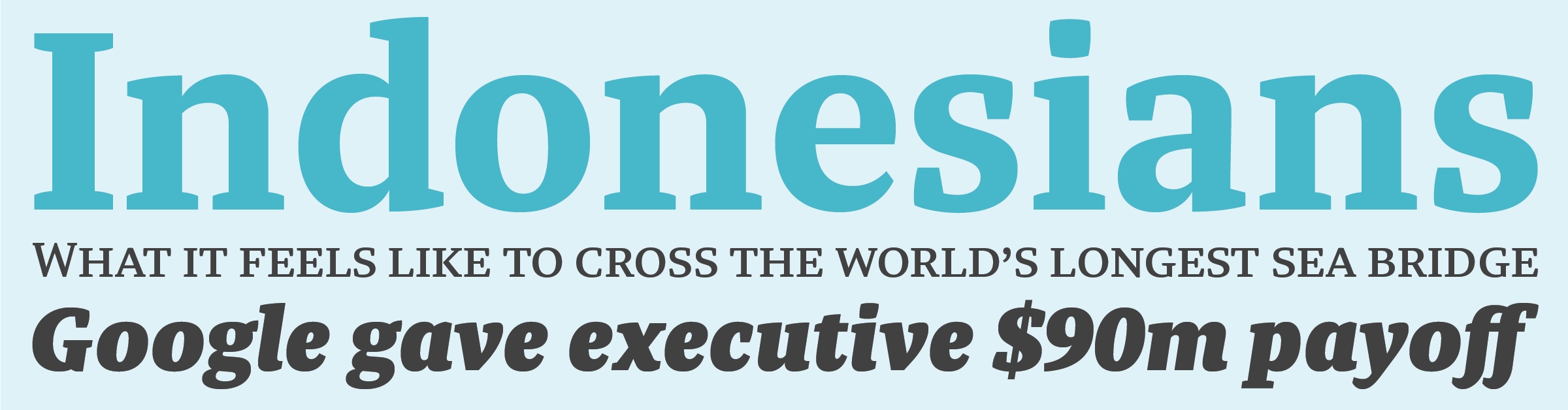
Tasman Font
Tasman Font is perfect for Australian tourism marketing, maritime adventure branding, exploration company logos, outdoor gear packaging, historical museum displays, seafaring heritage signage, adventure travel campaigns, and oceanic research communications.
What makes Tasman Font exciting is its exploratory spirit that captures the bold adventure and maritime heritage of legendary ocean voyages and geographical discovery. The font features sturdy letterforms with navigational precision and seafaring character that evoke compass roses, nautical charts, and the courage of explorers who mapped uncharted waters. Its distinctive maritime styling and adventurous appeal communicate discovery, resilience, and pioneering spirit, making every message feel charted for new territories and anchored in exploration tradition.
The Tasman Font family includes regular weight with uppercase and lowercase letters, numerals, punctuation marks, and special characters. Premium versions often feature maritime alternates and exploration-inspired elements that enhance the adventurous, oceanic aesthetic perfect for travel and heritage applications.
This commanding exploration typeface brings instant adventure and maritime authenticity to any discovery-themed project. Tasman Font Free Download offers exceptional value for businesses and organizations in tourism and adventure industries seeking to communicate exploration spirit, maritime heritage, and authentic Australian cultural connections.
The pioneering character of Tasman Font makes it particularly valuable for adventure tour operators, maritime museums, and Australian cultural institutions. Its excellent readability ensures expedition information and historical narratives remain clear while maintaining the distinctive exploratory aesthetic that appeals to travelers seeking authentic adventure experiences and maritime history.
Tourism marketers and heritage communicators appreciate how Tasman Font effortlessly conveys exploration authenticity and maritime tradition. The font's sturdy proportions and navigational details create compelling brand materials that establish connections with audiences passionate about adventure travel, maritime history, and Australian heritage.
The versatile adventure appeal of this typeface extends to outdoor equipment companies, historical documentaries, and cultural education where exploration authenticity enhances credibility. Tasman Font Free Download provides creative professionals with an essential tool for developing memorable, discovery-driven designs that resonate with audiences who embrace maritime adventure, Australian heritage, and the pioneering spirit of oceanic exploration in their travel and educational experiences.